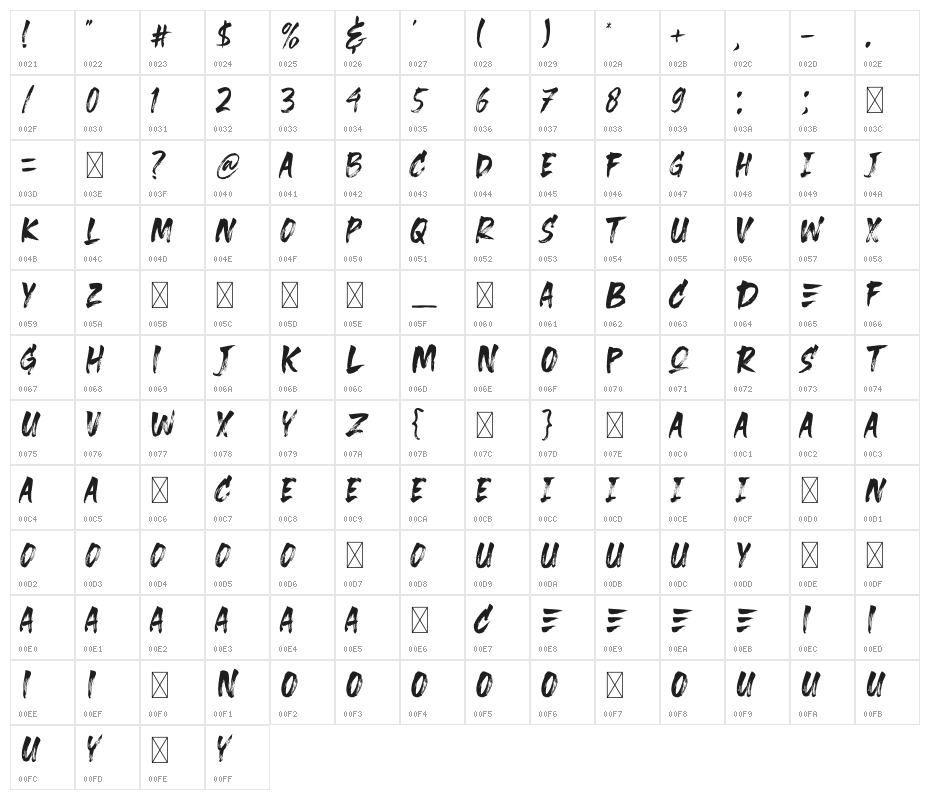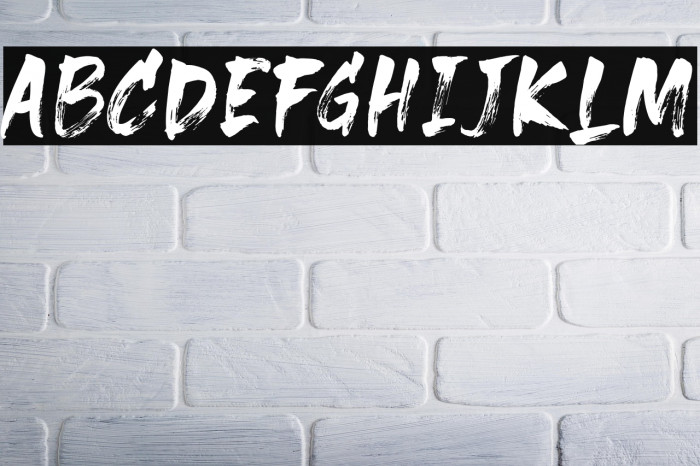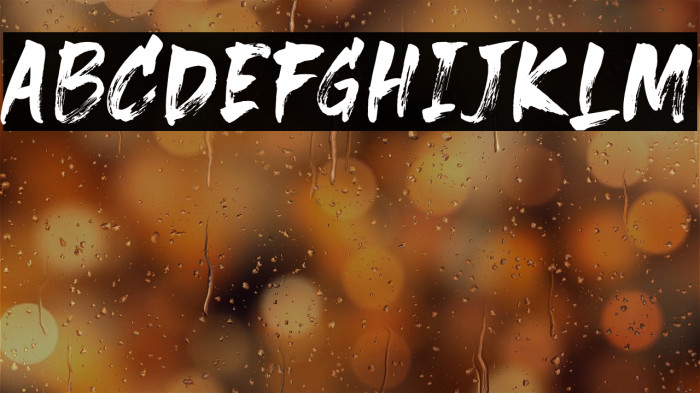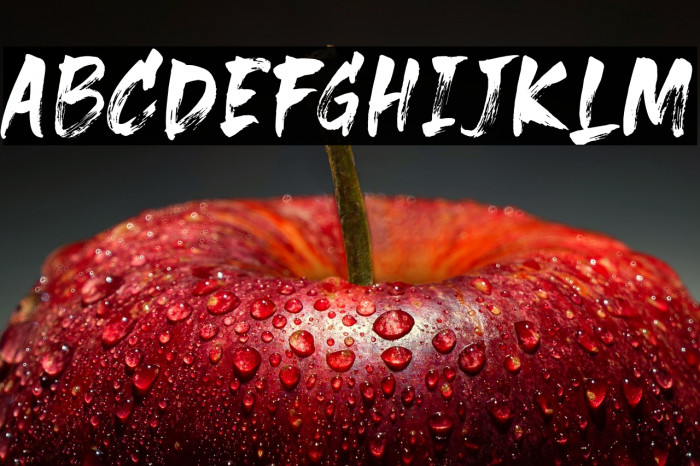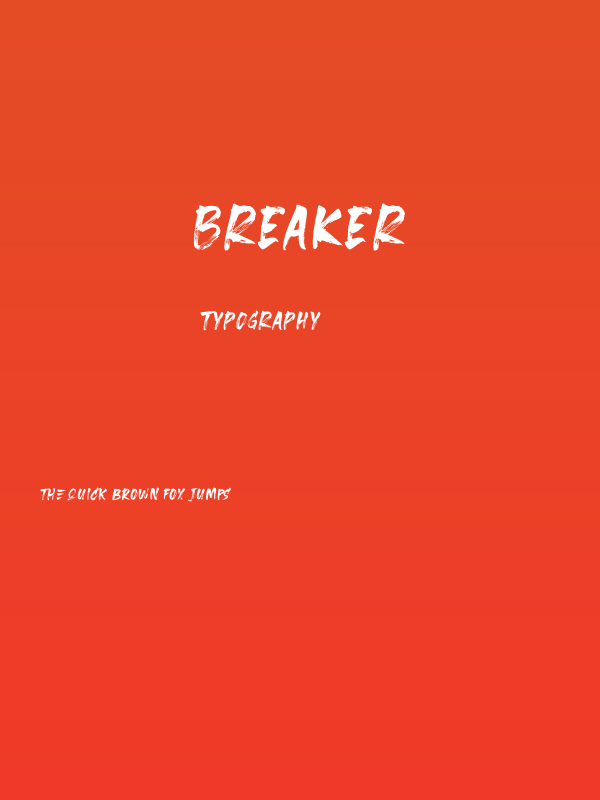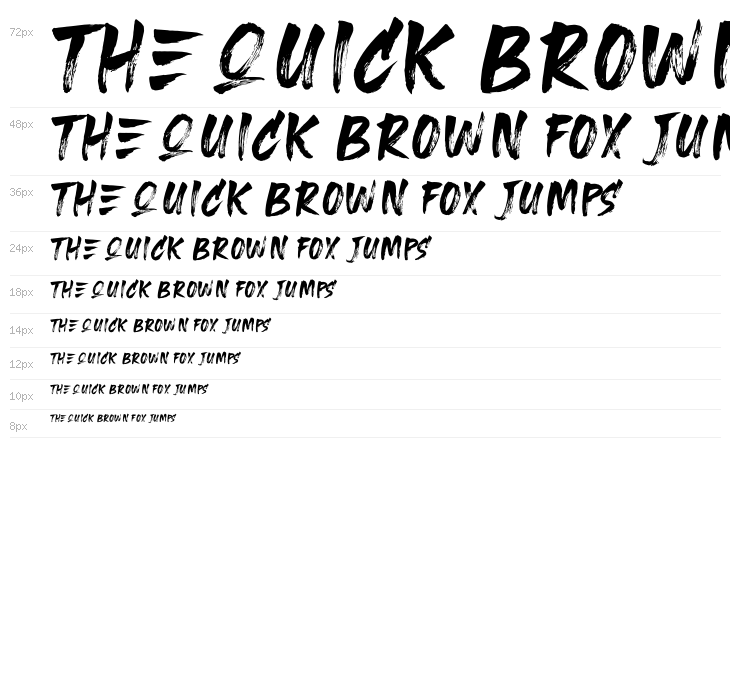
Breaker Font
Breaker Description
This font exudes a bold and dynamic energy, characterized by its brush-like strokes and expressive, hand-painted appearance. The letters are crafted with a sense of movement and fluidity, giving them a lively and artistic feel. Each character varies in width and stroke thickness, creating a sense of spontaneity and creativity. The uppercase and lowercase letters maintain a consistent style, with the uppercase being slightly more pronounced. The numbers and special characters follow the same energetic style, making the font versatile for various design needs.
| Use Case | Headlines, Logos, Artistic designs |
| Proposed Projects | Ideal for creative projects such as posters, album covers, branding, and artistic invitations. |